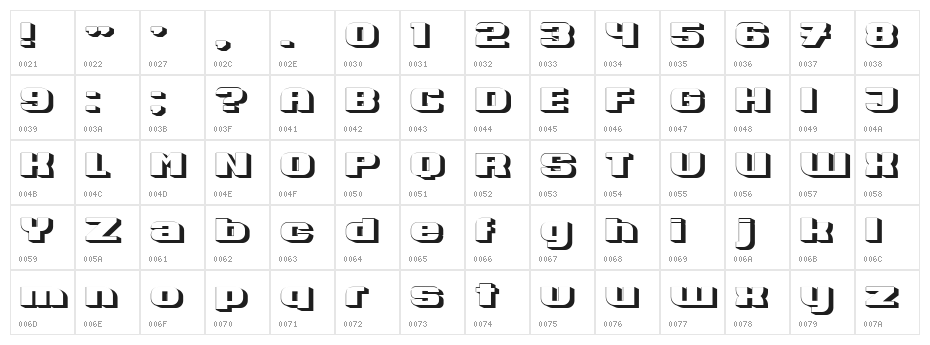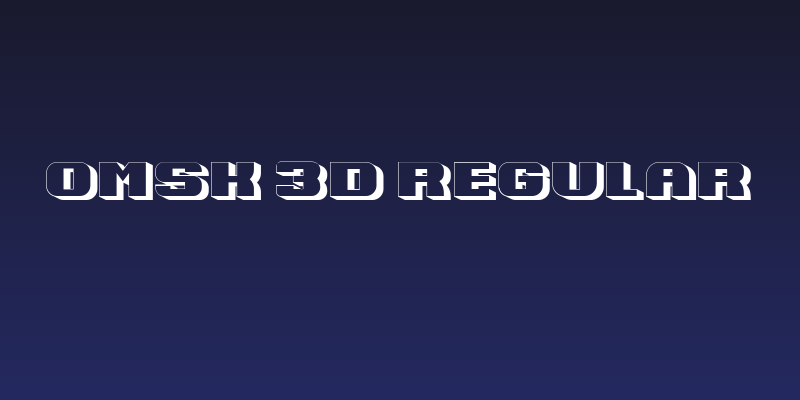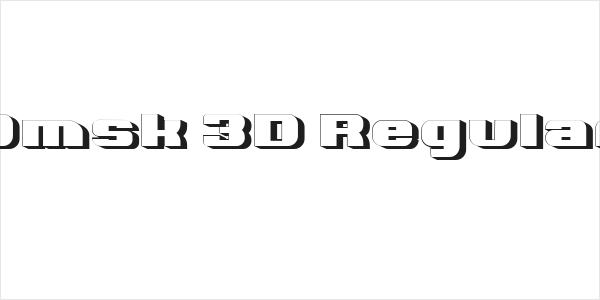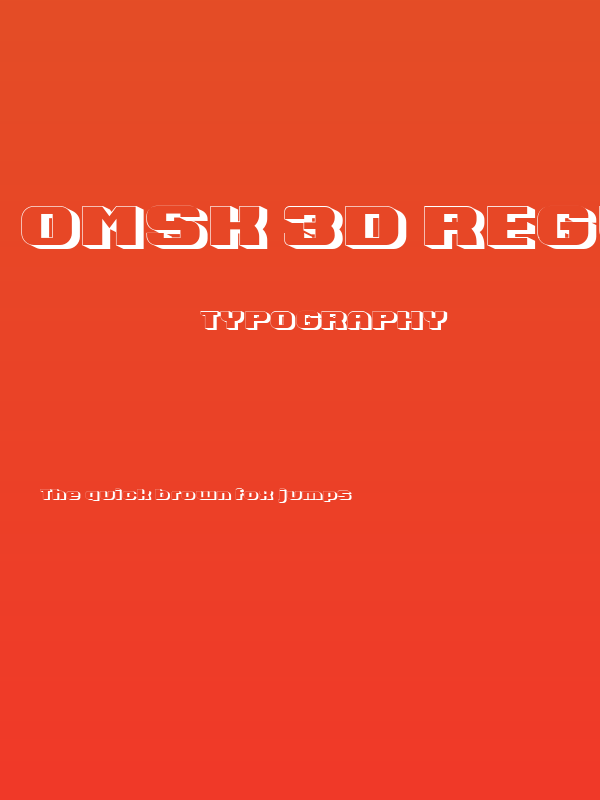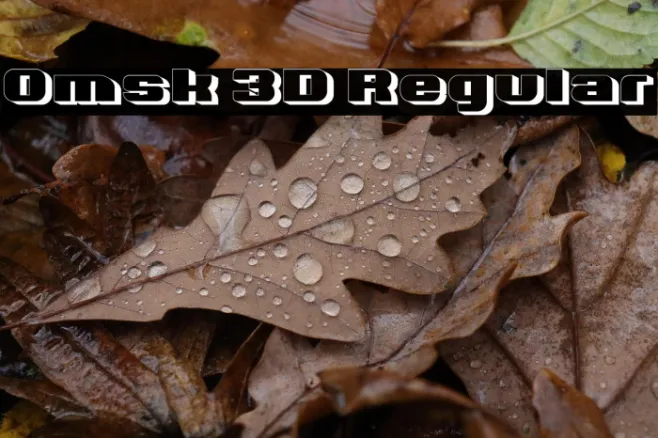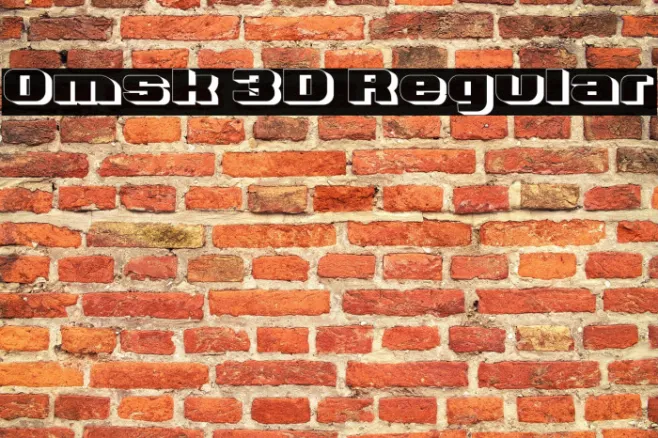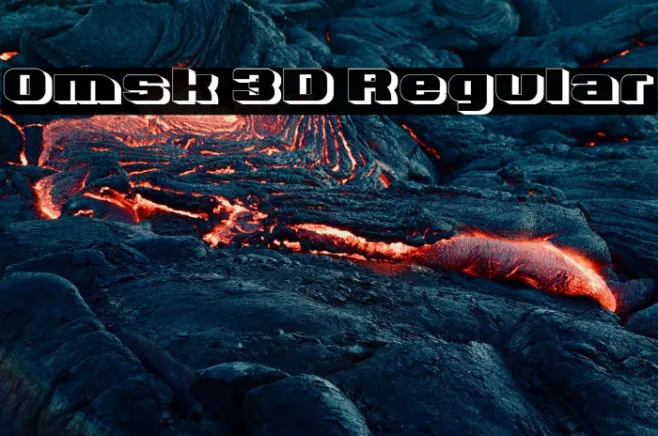
Omsk 3D Regular Font
Omsk 3D Regular Description
This font features a bold, three-dimensional style with a strong presence. Each character is designed with a shadow effect that gives it a distinct 3D appearance, making it stand out prominently. The letters are blocky and geometric, with consistent stroke widths that contribute to a uniform look. The uppercase and lowercase letters maintain a similar structure, ensuring readability while adding a playful touch. The numerals and special characters follow the same design principles, providing a cohesive visual experience. This font is ideal for projects that require a striking and modern aesthetic.
| Proposed Projects | Ideal for posters, headlines, logos, and any design requiring a bold, modern look. |